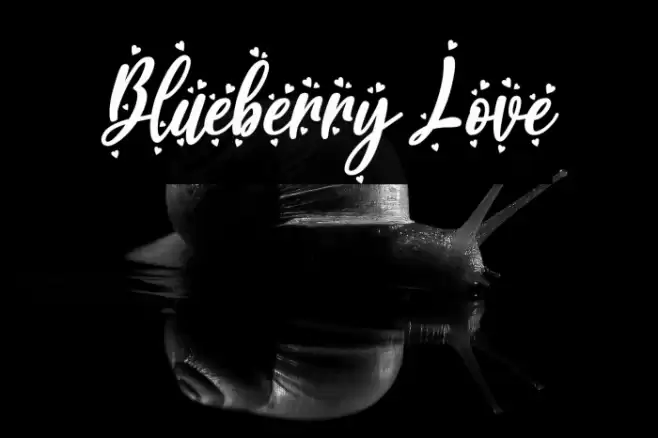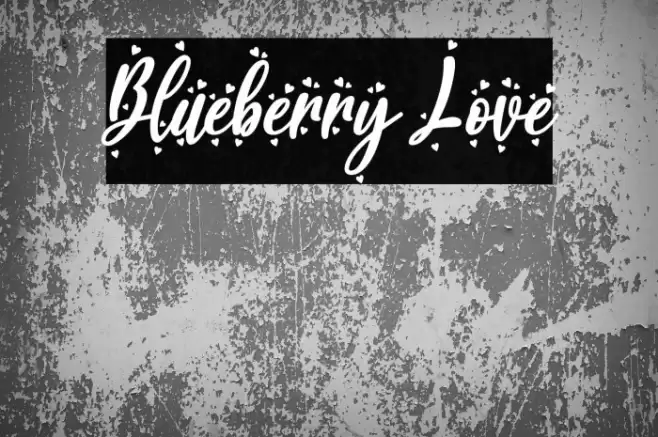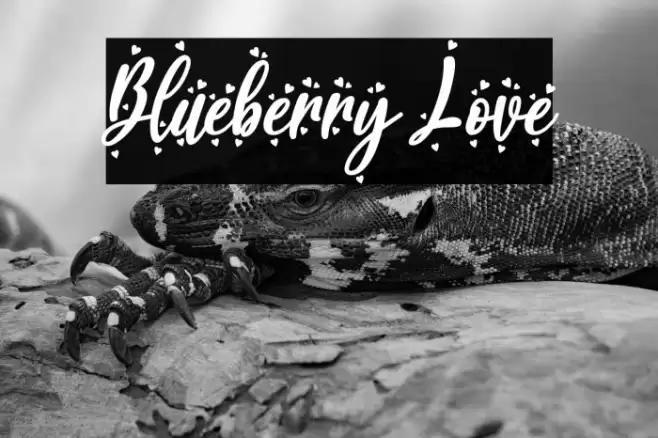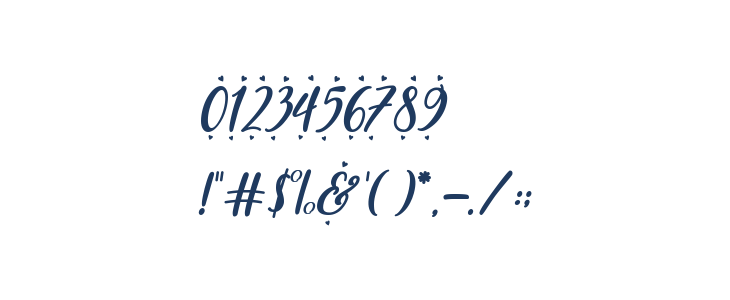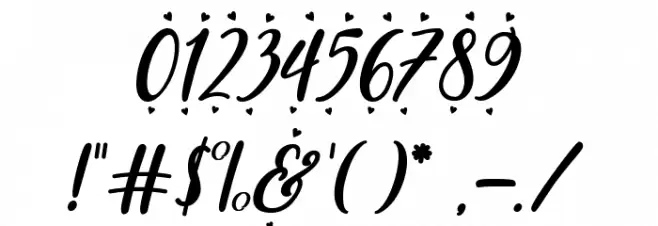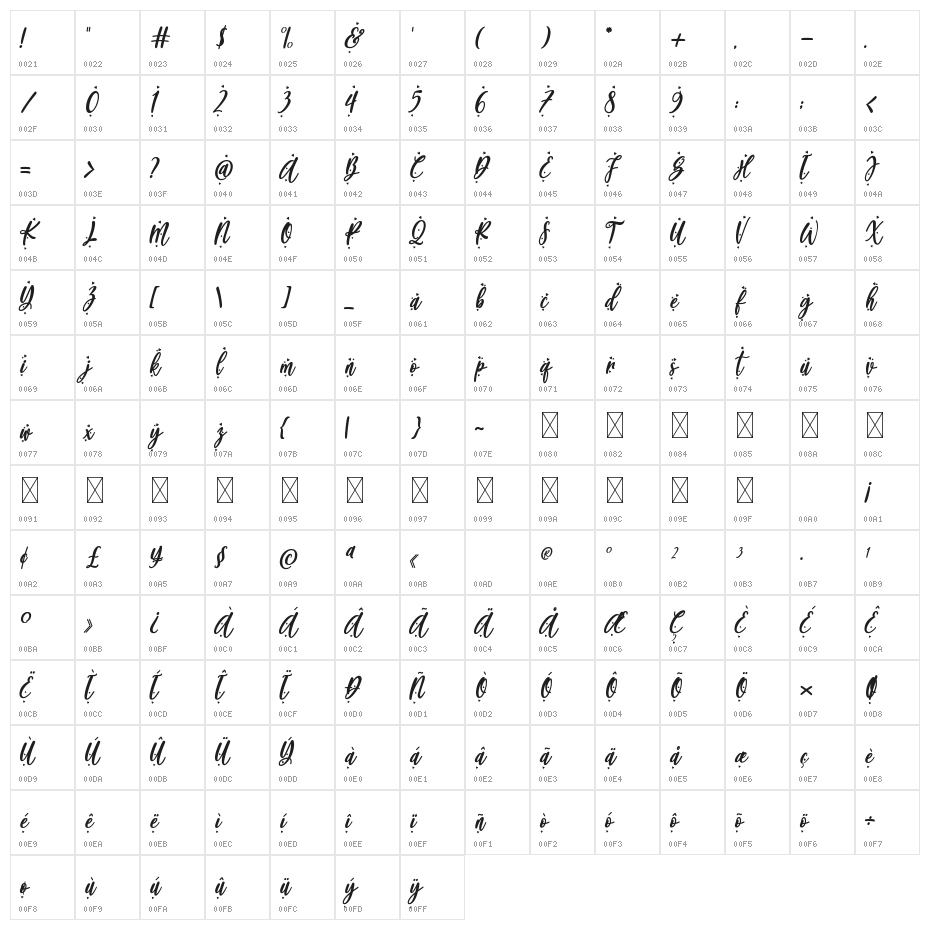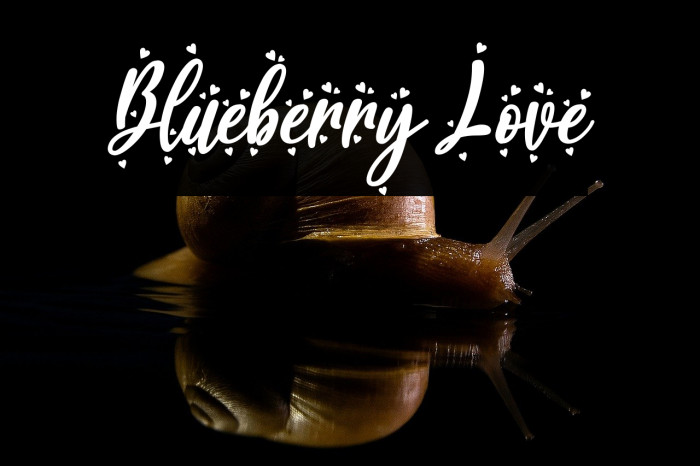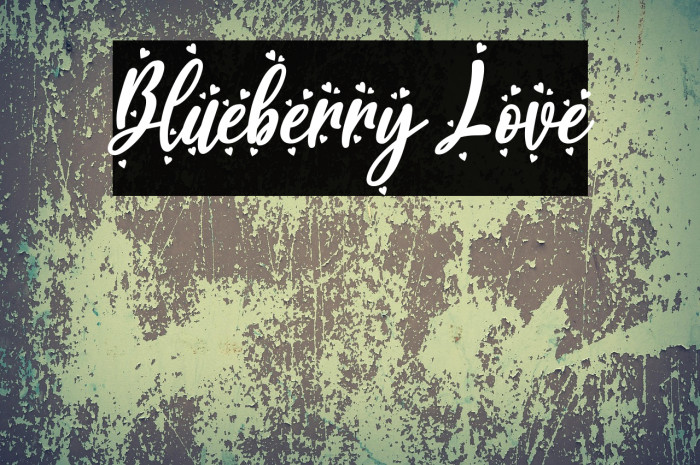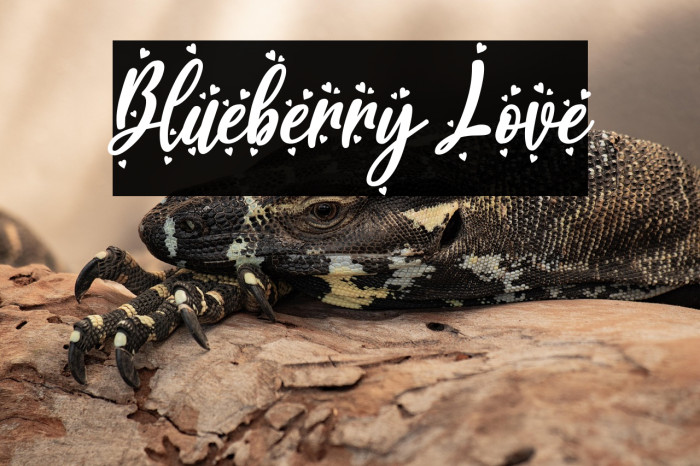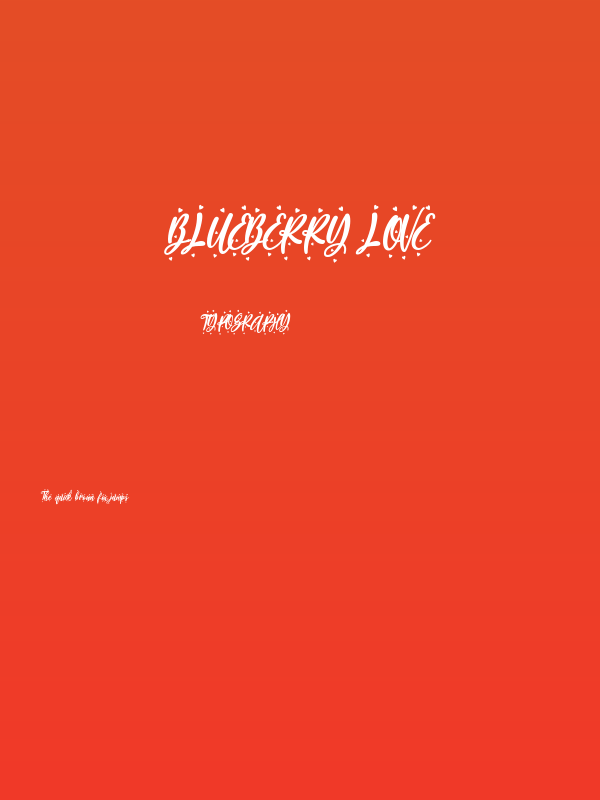
Blueberry Love Font
Blueberry Love Description
This font features a playful and romantic script style, characterized by its flowing, cursive letters adorned with small heart accents. The uppercase letters are bold and expressive, while the lowercase letters maintain a consistent, elegant flow. The numerals and special characters are designed to complement the overall whimsical aesthetic, making it ideal for projects that require a touch of charm and personality. The font's unique heart embellishments add a decorative flair, enhancing its appeal for creative and artistic applications.
A playful script font with heart accents, perfect for romantic and creative designs from Regular fonts.
- Font: Blueberry Love
- Proposed Projects: Ideal for wedding invitations, greeting cards, love-themed posters, and branding projects that require a romantic touch.
- Use Case: Logos, Invitations, Decorative Text